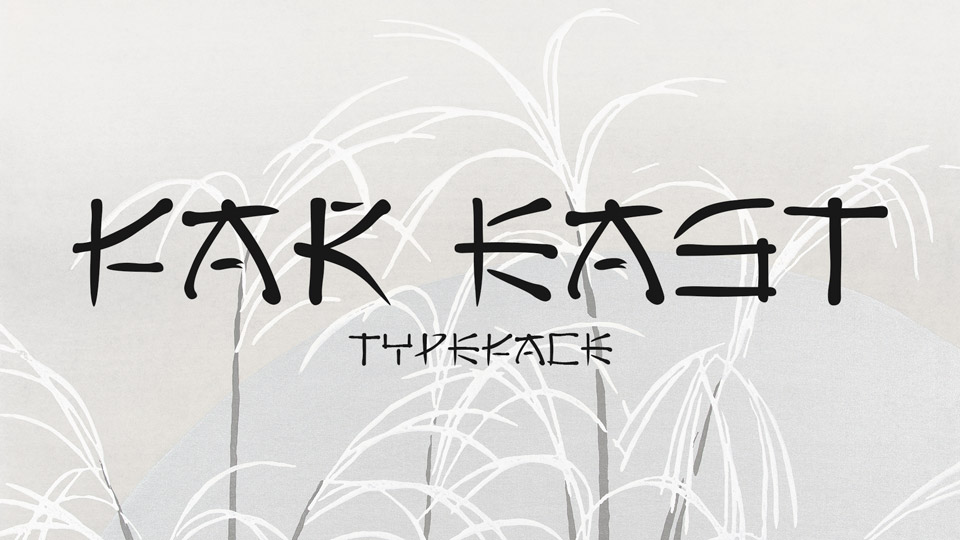
Download Far East font, an asian calligraphy style display typeface. Far East font is really just the Latin alphabet made to look like an exotic far east script and tilted on its side.
Designer: Matthew Welch